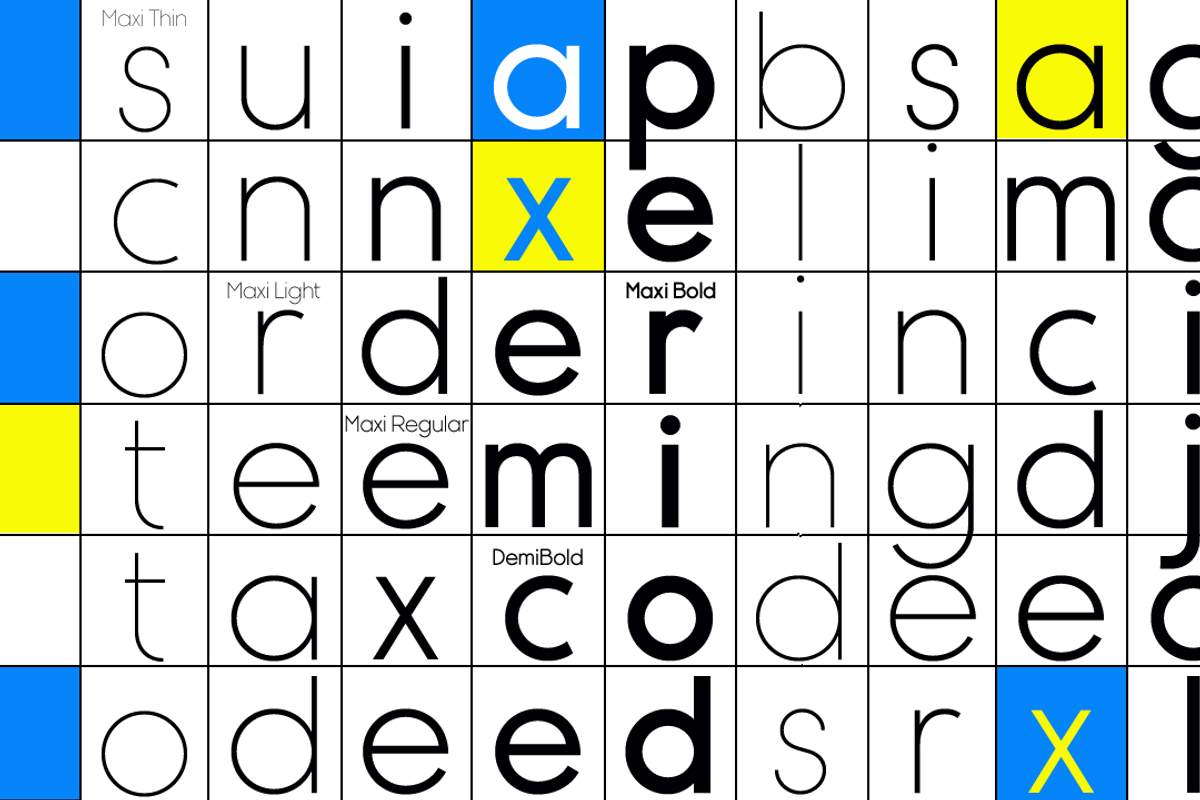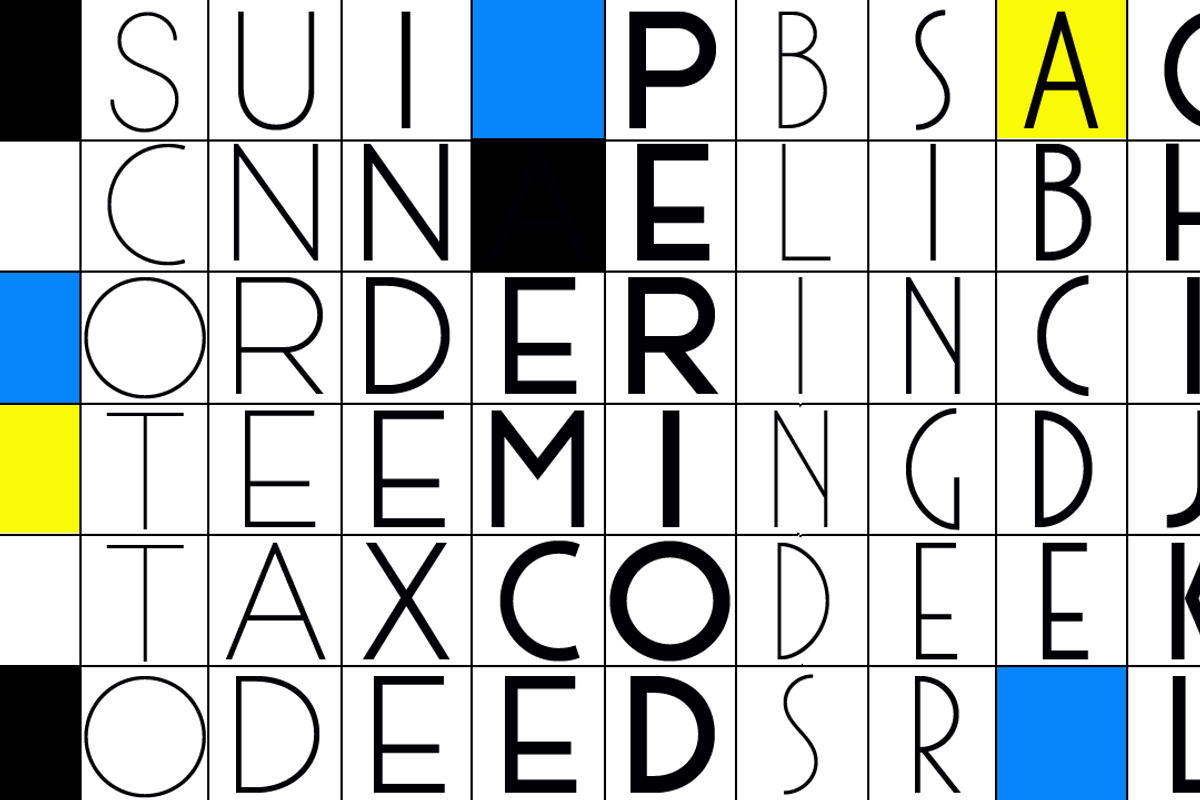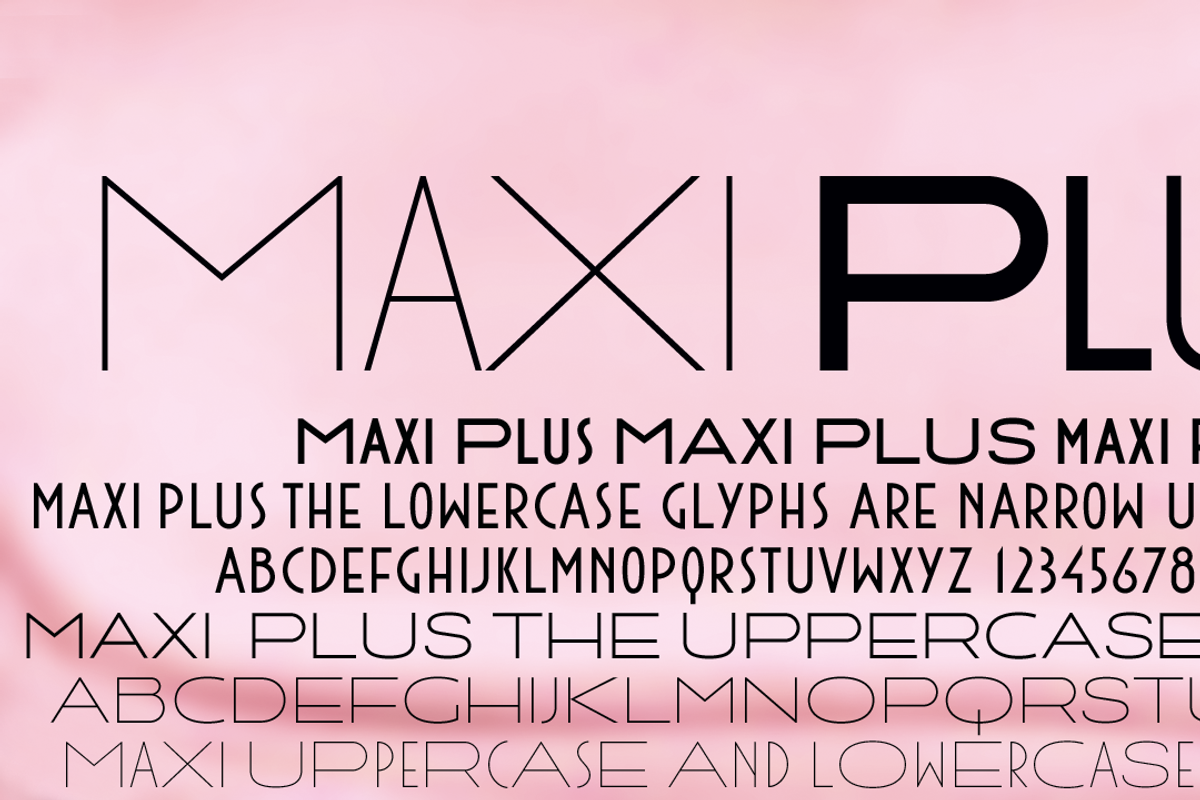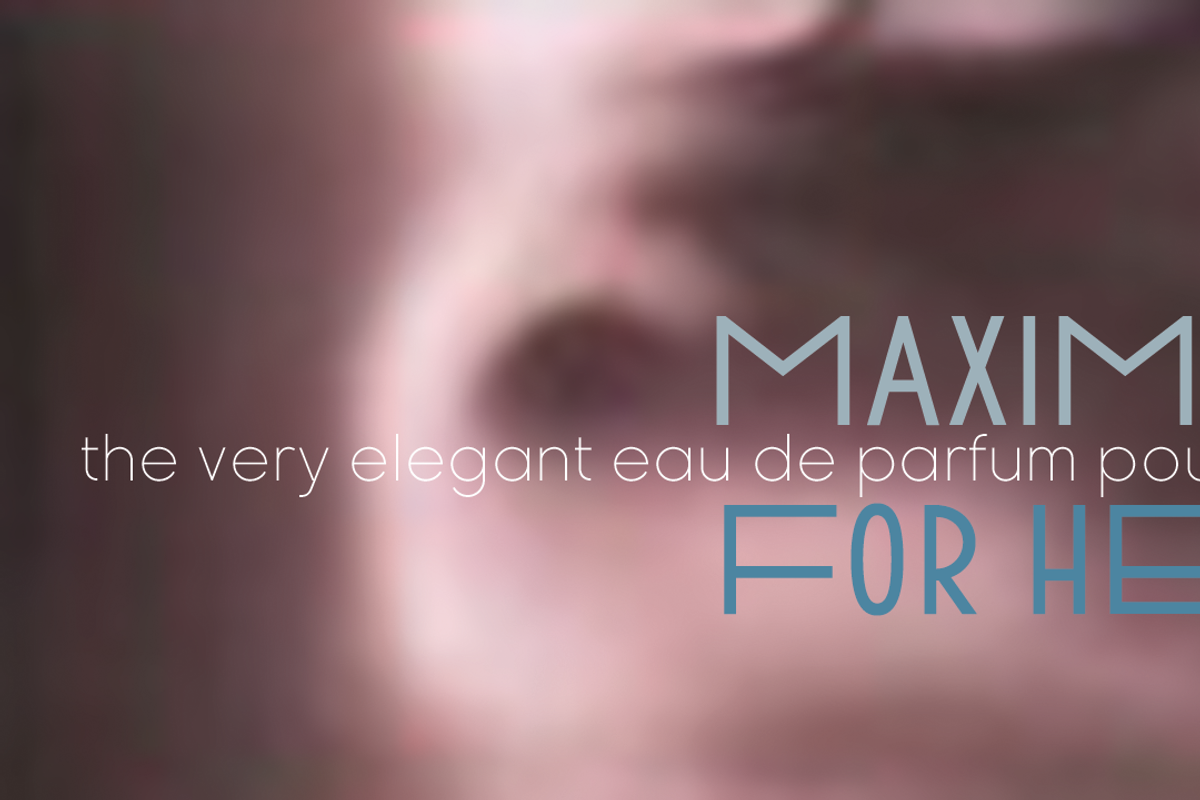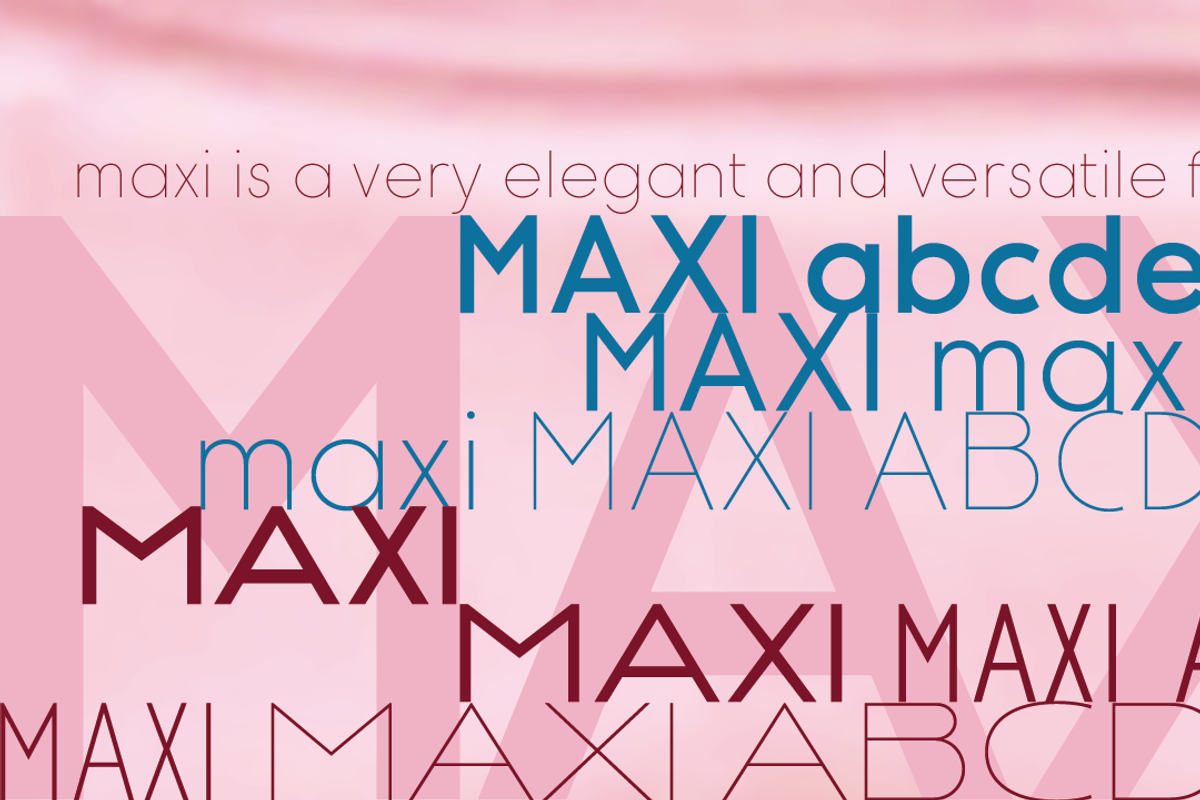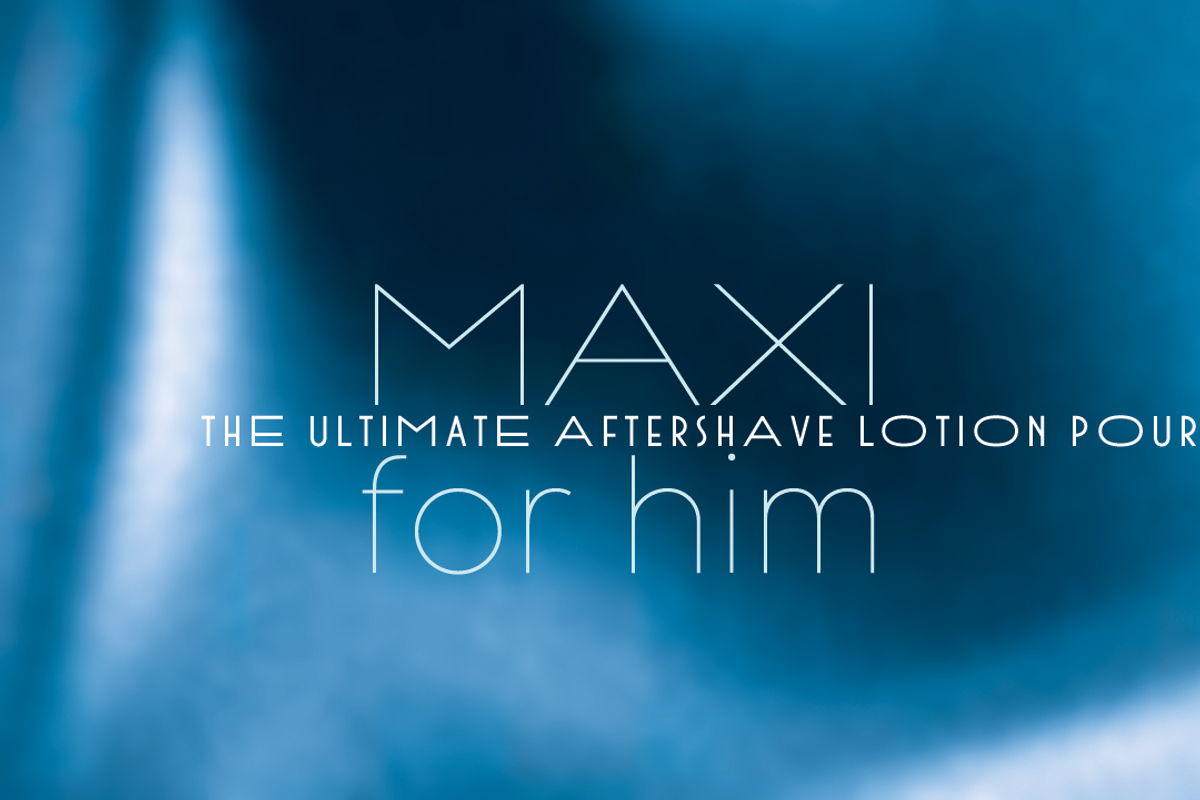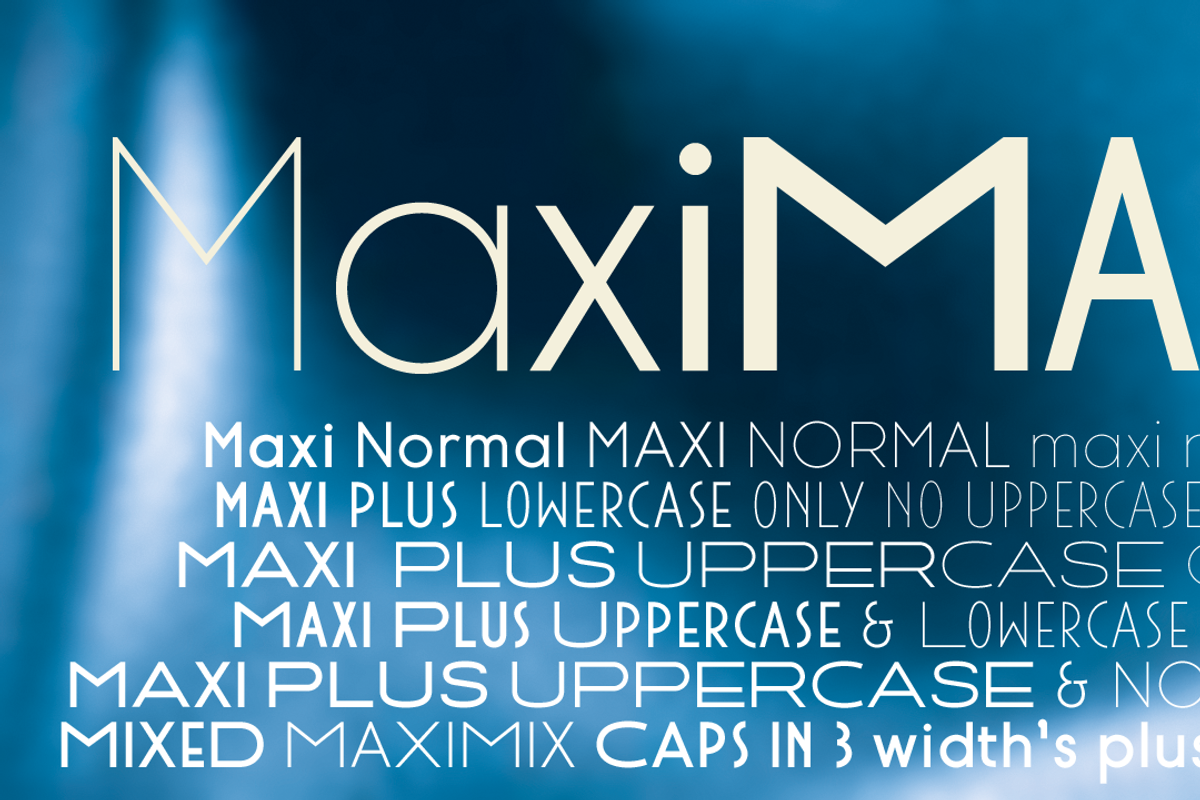
Maxi fonts
Maxi fonts by Wiescher Design is a font selected for branding, posters, packaging, typography.
- The »Maxi Plus« has narrow uppercase glyphs instead of lowercase letters and the uppercase glyphs are extra wide, so you can combine three d
Why Maxi fonts is worth a look
Maxi fonts by Wiescher Design fits naturally into Branding, posters, packaging, typography.